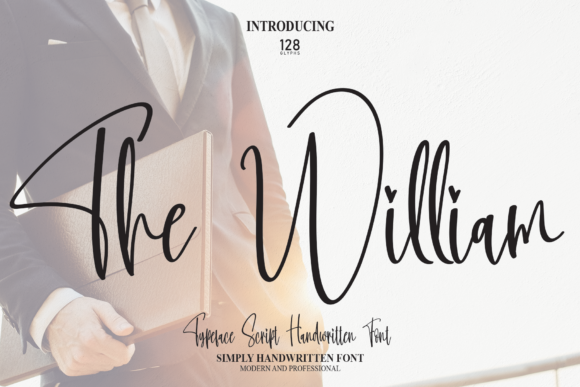
The William Font
Introducing 'The William Font,' a calligraphy script font that embodies elegance and sophistication. This exquisite typeface will transform your creative projects, adding a touch of timeless charm to every word.
Crafted by the talented andikastudio, The William Font is the epitome of refined typography. Its graceful curves and flowing lines evoke a sense of effortless beauty, making it the perfect choice for a wide range of design applications.
Imagine the allure of your product packaging adorned with the delicate strokes of The William Font. Its sophisticated flair will elevate your brand's image, conveying a message of discerning taste and style.
Envision the impact of your branding projects infused with the captivating charm of The William Font. Its graceful characters will create an unforgettable impression, leaving a lasting mark on your audience.
Picture the covers of your magazines adorned with the captivating allure of The William Font. Its timeless elegance will draw readers in, promising an exceptional literary experience within.
Unleash the power of The William Font on your social media platforms. Its chic aesthetic will elevate your posts, capturing the hearts and minds of your followers.
Let love blossom on your wedding invitations adorned with the romantic script of The William Font. Its graceful lines will convey the essence of your special day, creating a cherished keepsake for years to come.
The William Font is more than just a typeface; it's an artistic masterpiece that empowers you to express your words with captivating beauty. Its versatility extends beyond mere aesthetics, enabling you to convey a myriad of emotions, from joy and love to elegance and whimsy.
Allow The William Font to grace your creative endeavors, imbuing them with a timeless allure that will leave an unforgettable mark on your audience.